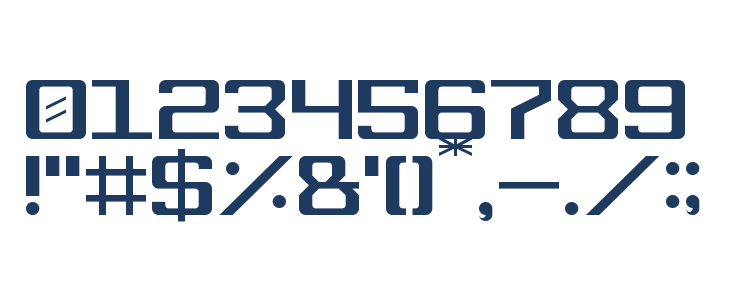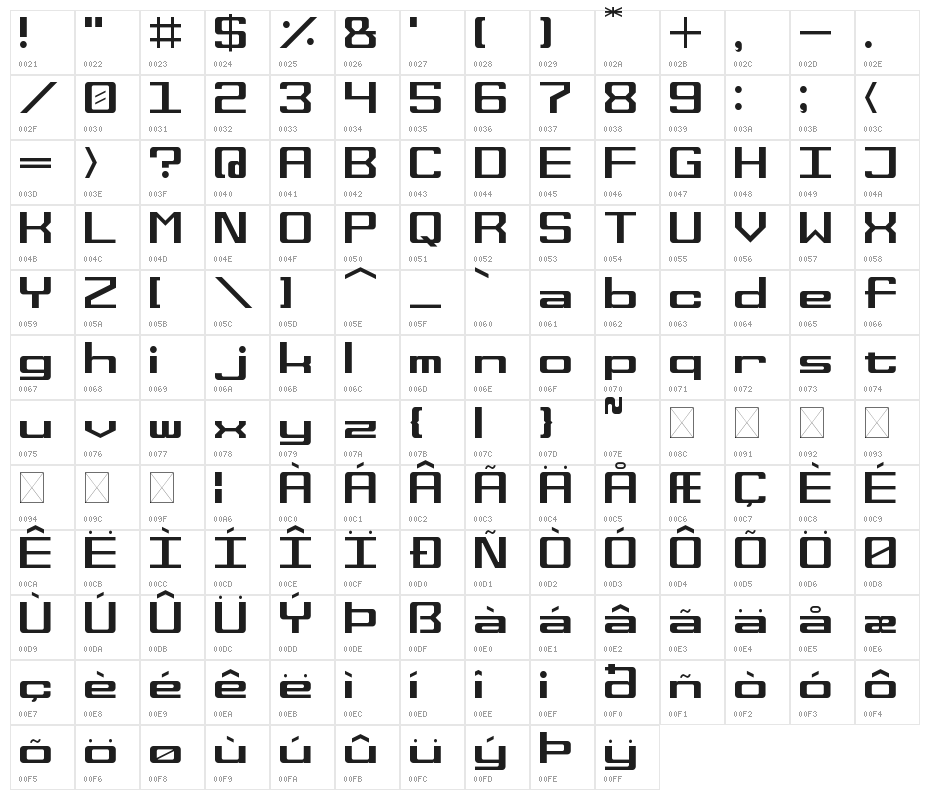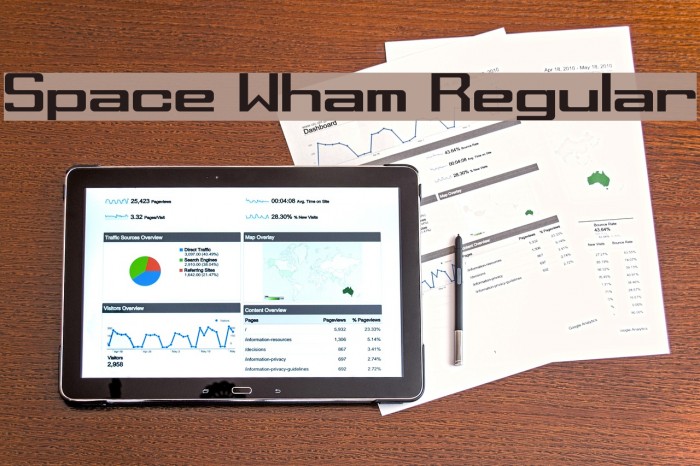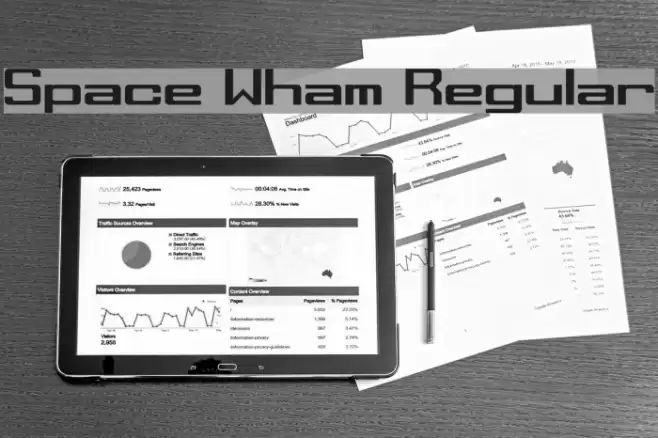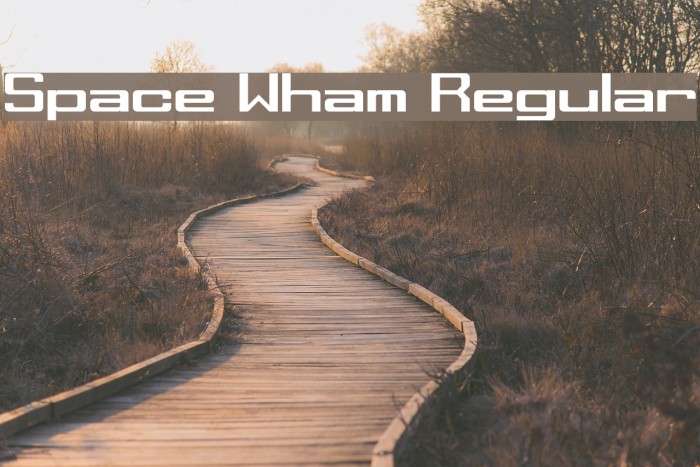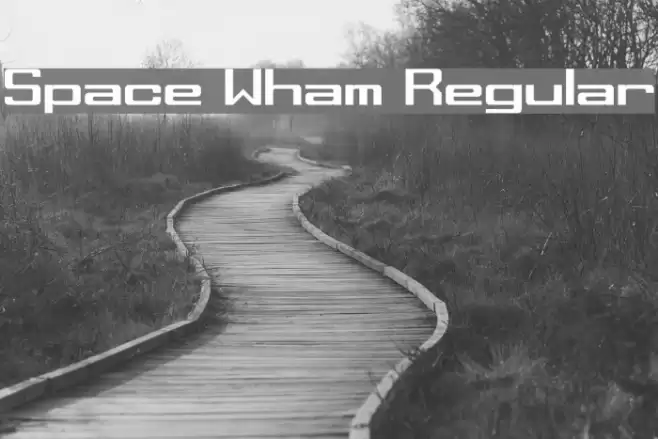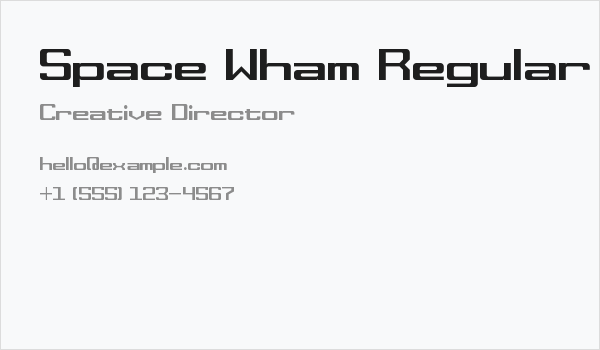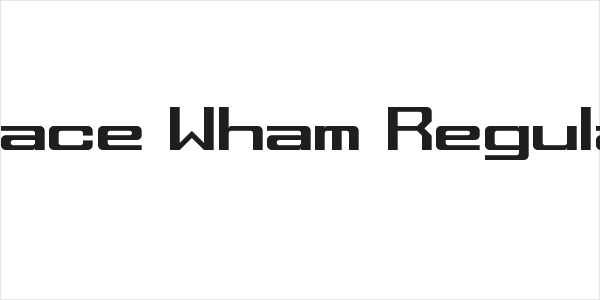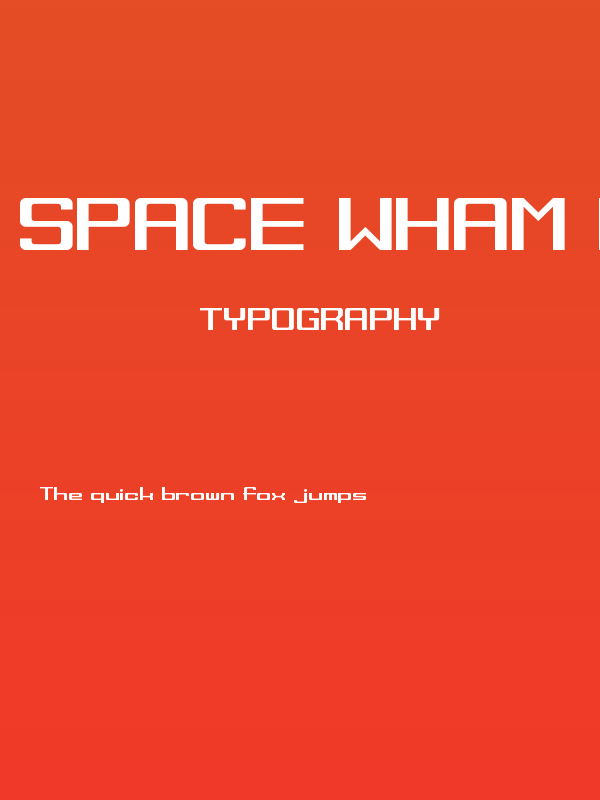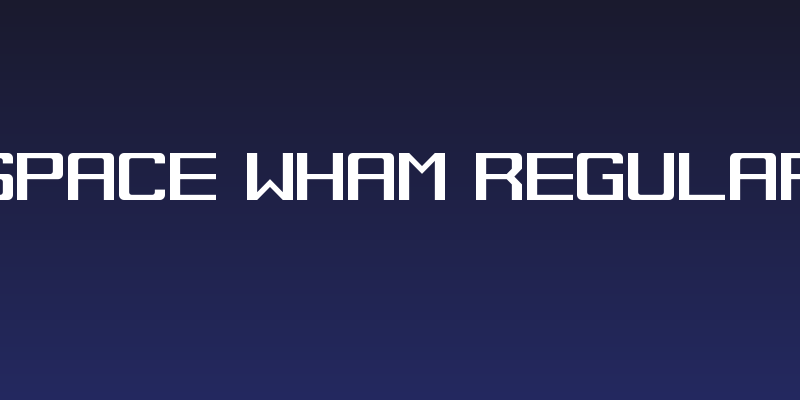
Space Wham Regular Font
Space Wham Regular Description
This font features a futuristic and geometric design, characterized by its angular and block-like letterforms. The uppercase and lowercase letters maintain a consistent structure, with sharp edges and a uniform stroke width that gives it a modern and technological appearance. The numerals and special characters follow the same design principles, ensuring a cohesive look across all glyphs. The font's style is reminiscent of digital or sci-fi themes, making it suitable for projects that require a contemporary and edgy aesthetic.
| Proposed Projects | Ideal for sci-fi themed posters, video game titles, tech branding, and digital interfaces. |